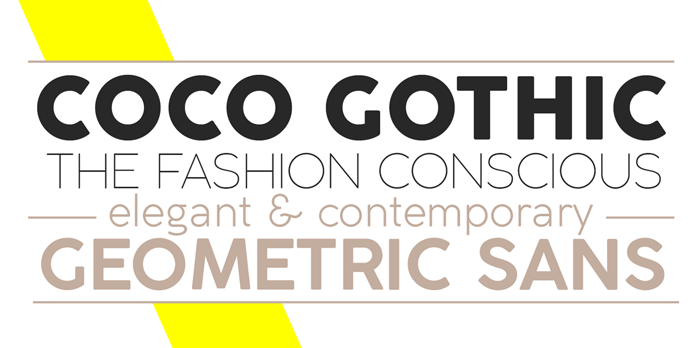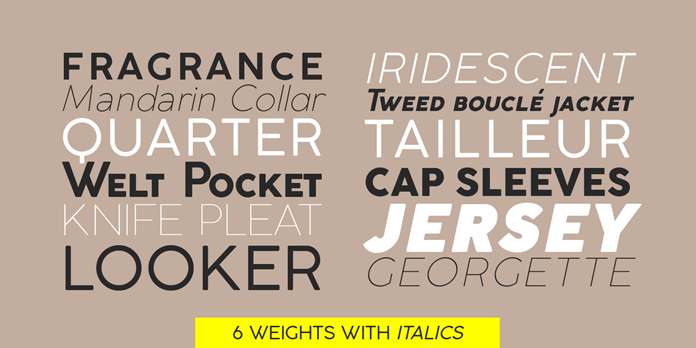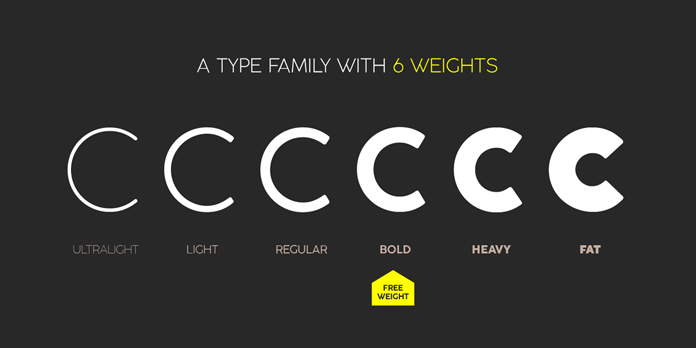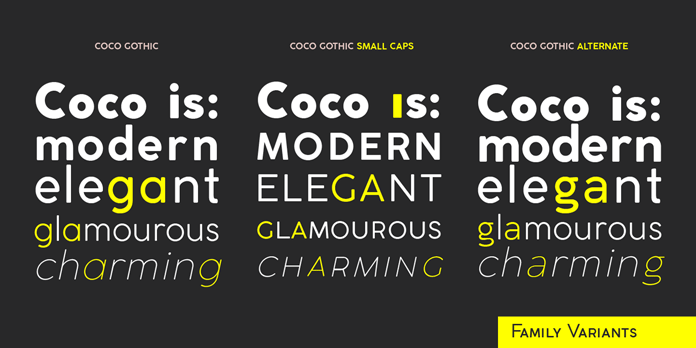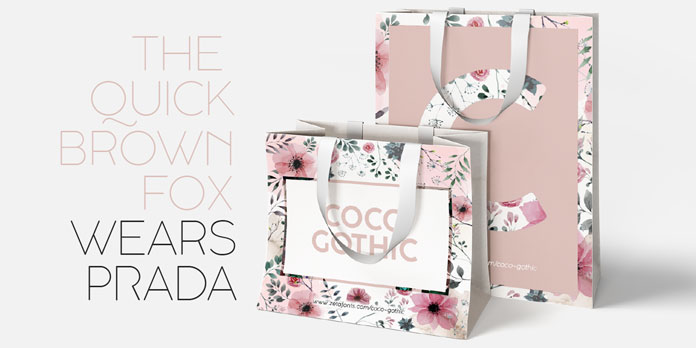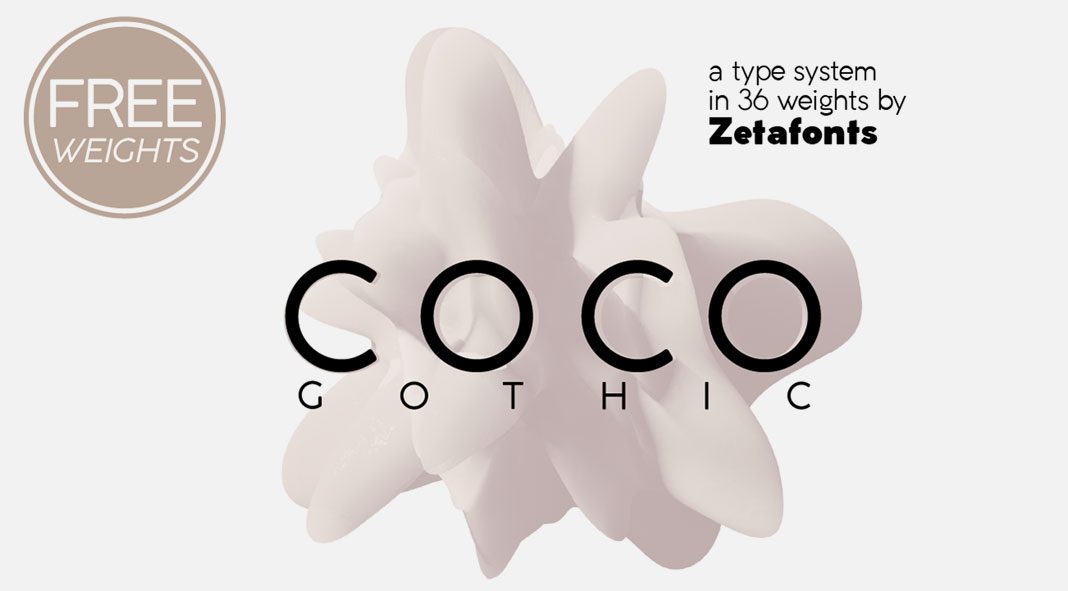
Coco Gothic, a font family that takes a modern twist on geometric sans serif styles from the early 20th century.
Designed by Cosimo Lorenzo Pancini in 2017, the Coco Gothic font family consists of 6 weights ranging from Ultra Light to Fat plus matching Italics and several alternative variants. The simple yet elegant design creates a modern take on typical geometric sans serif styles of the early 20th century. The countless typographic features include small caps, ligatures, alternate characters, all European languages as well as Greek and Cyrillic writing systems. Its uppercase letters come with plenty of historical variants. You can use this family for a rich array of typographic work such as brand and packaging design. For additional information, just follow the link below.